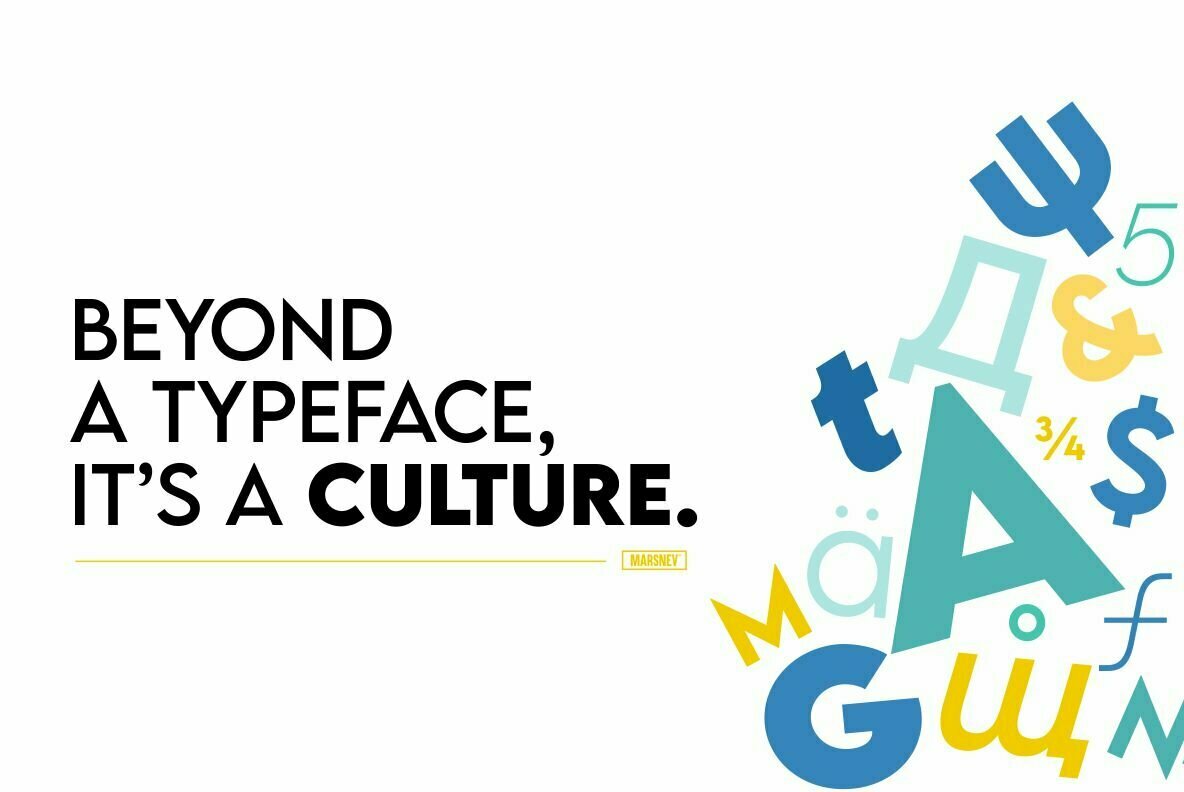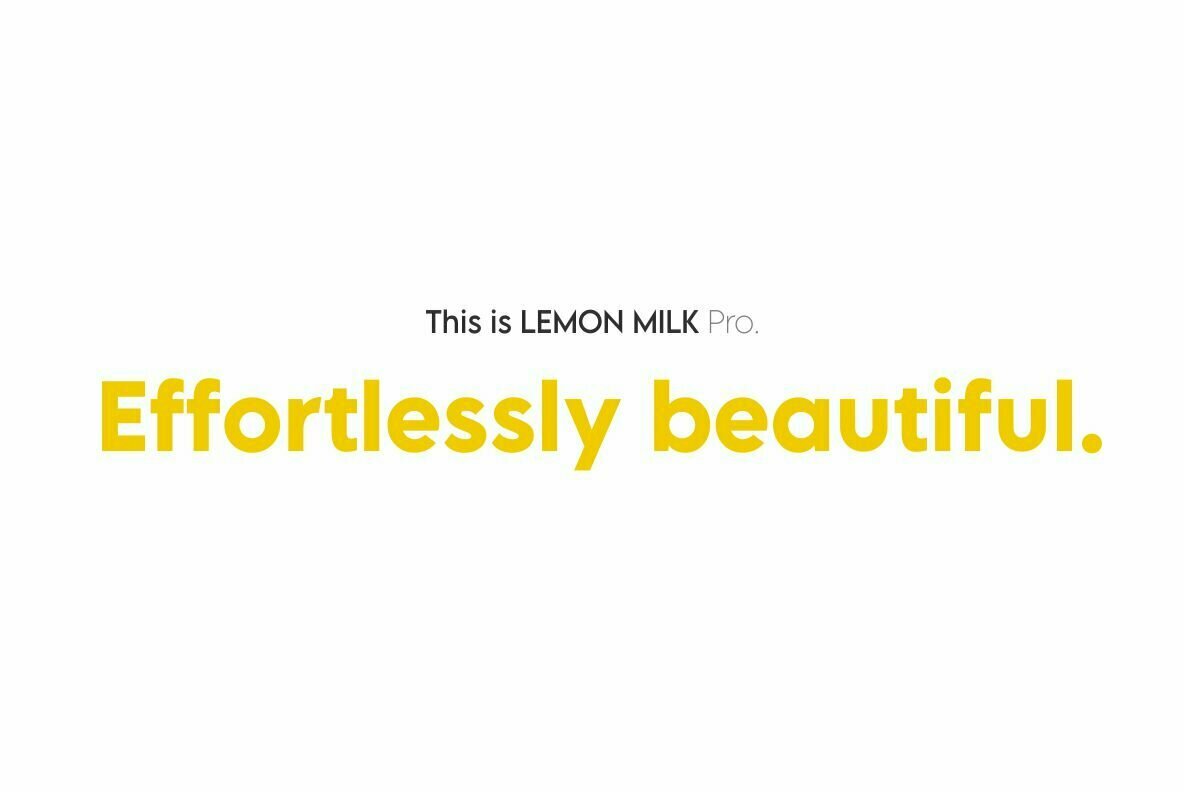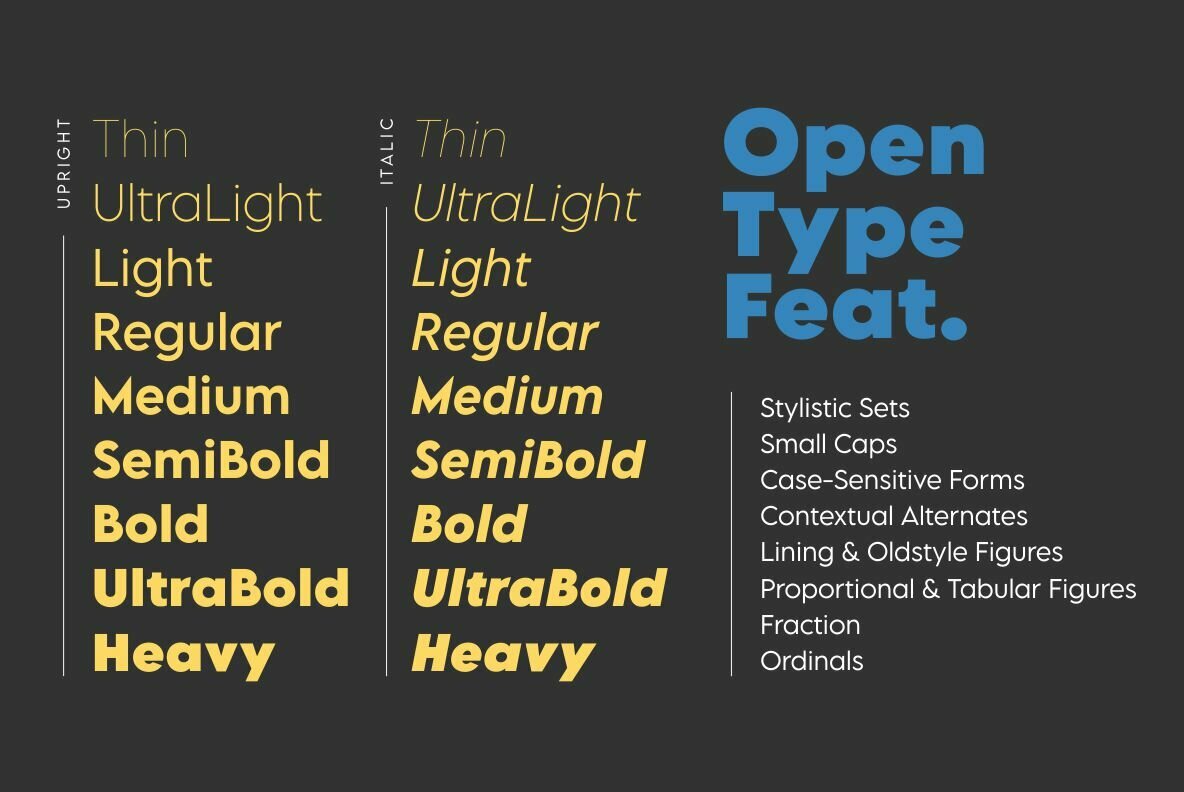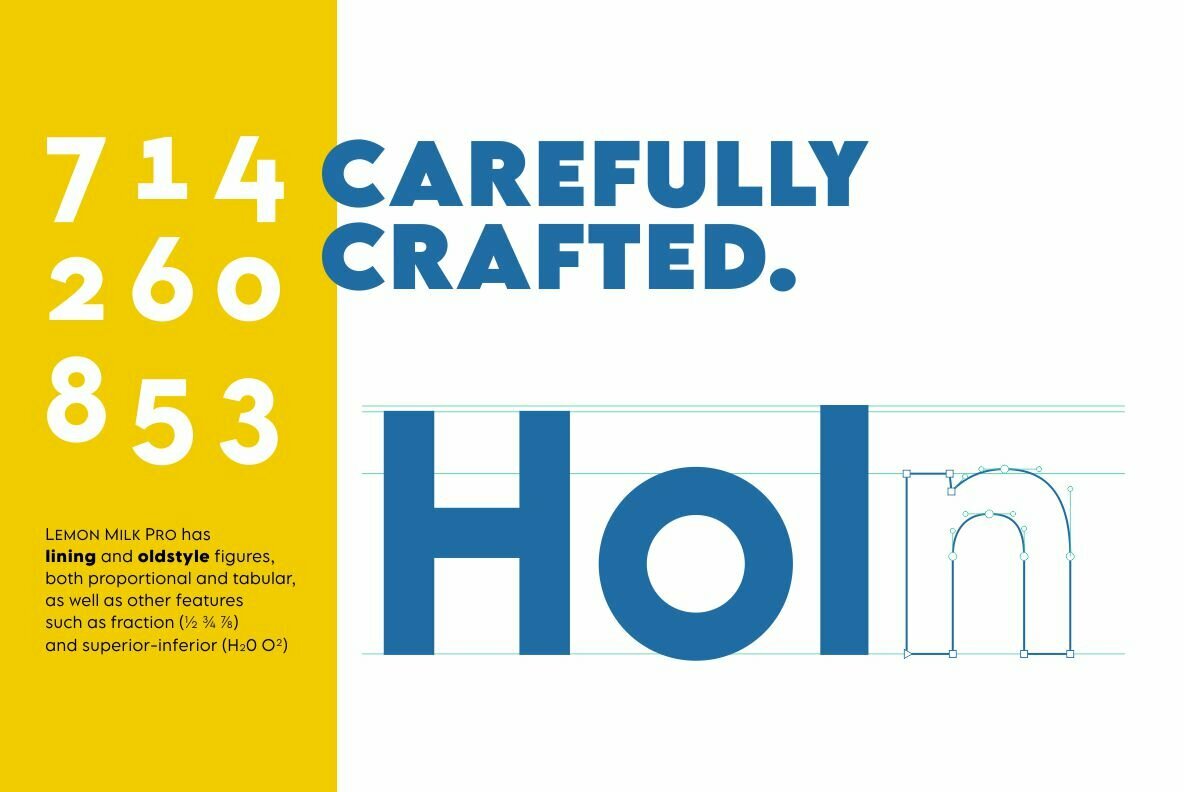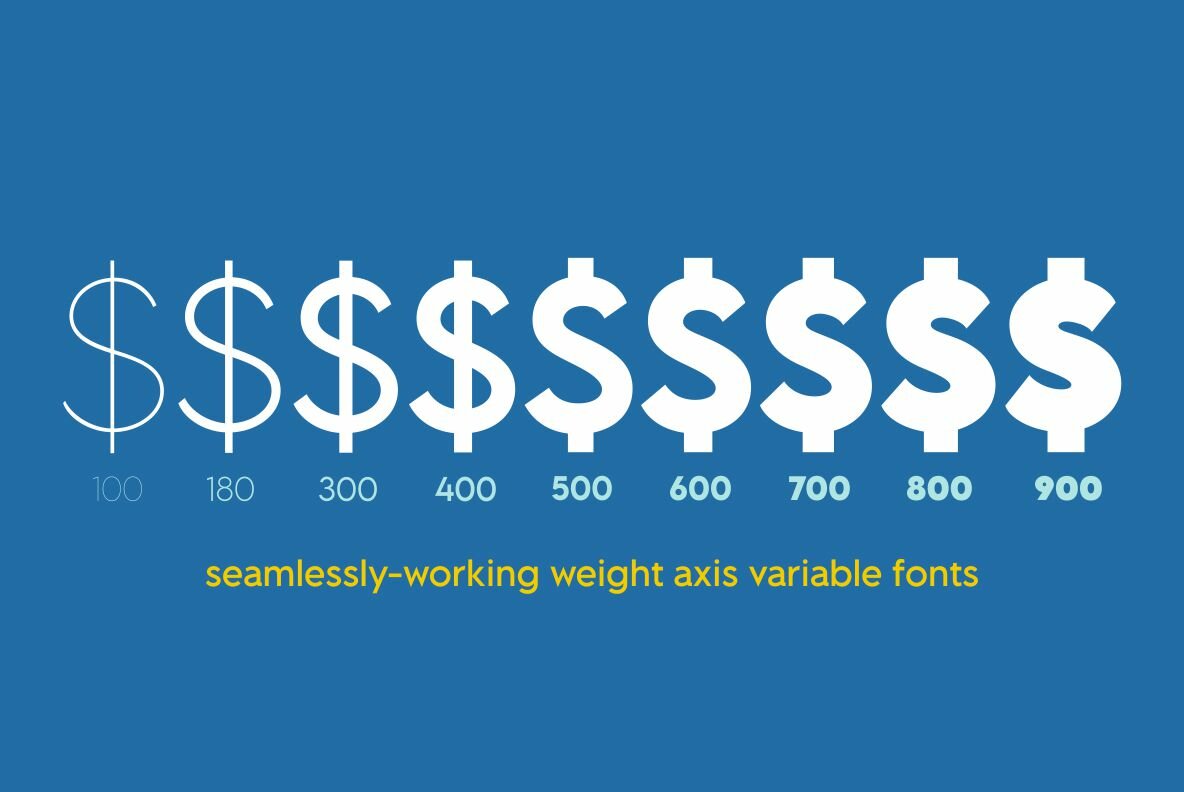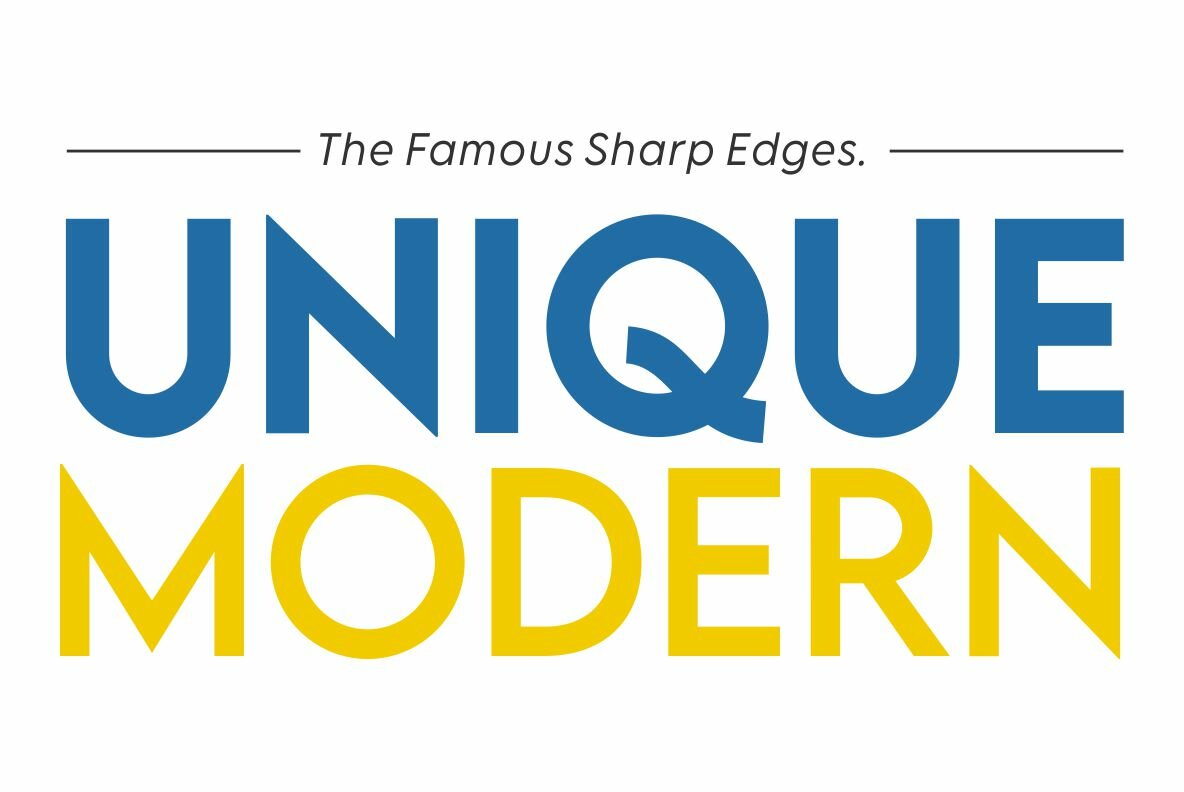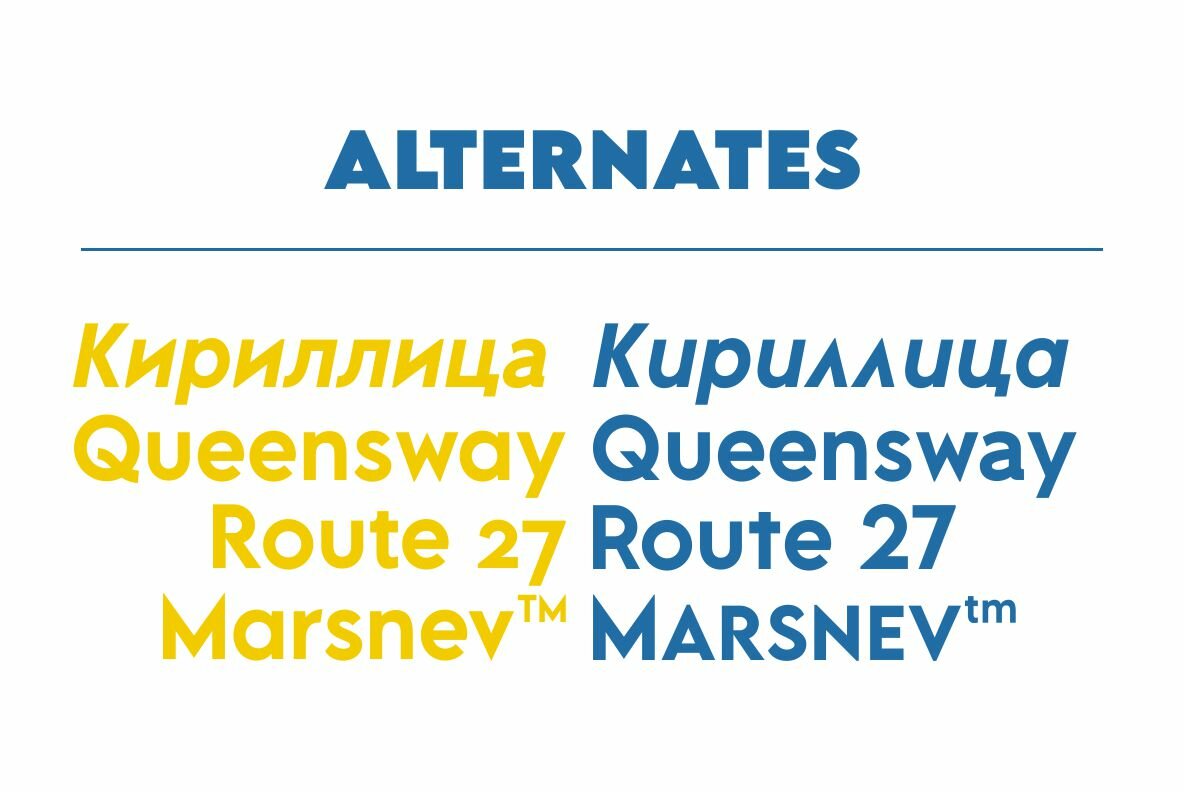
Lemon Milk Pro Font
Meet Lemon Milk Pro, your new go-to typeface.
After a long journey, the widely known Lemon Milk has now became pro fonts. It finally has lowercases, covering extended Latin, Cyrillic, and Greek. Moreover, developed from the original version in 2014, it is now future proof: more opentype features + variable fonts.
With such styles, this famous sans serif geometric typeface with sharp edges is perfect for every display!
Lemon Milk Pro: Beyond a typeface, it's a culture.